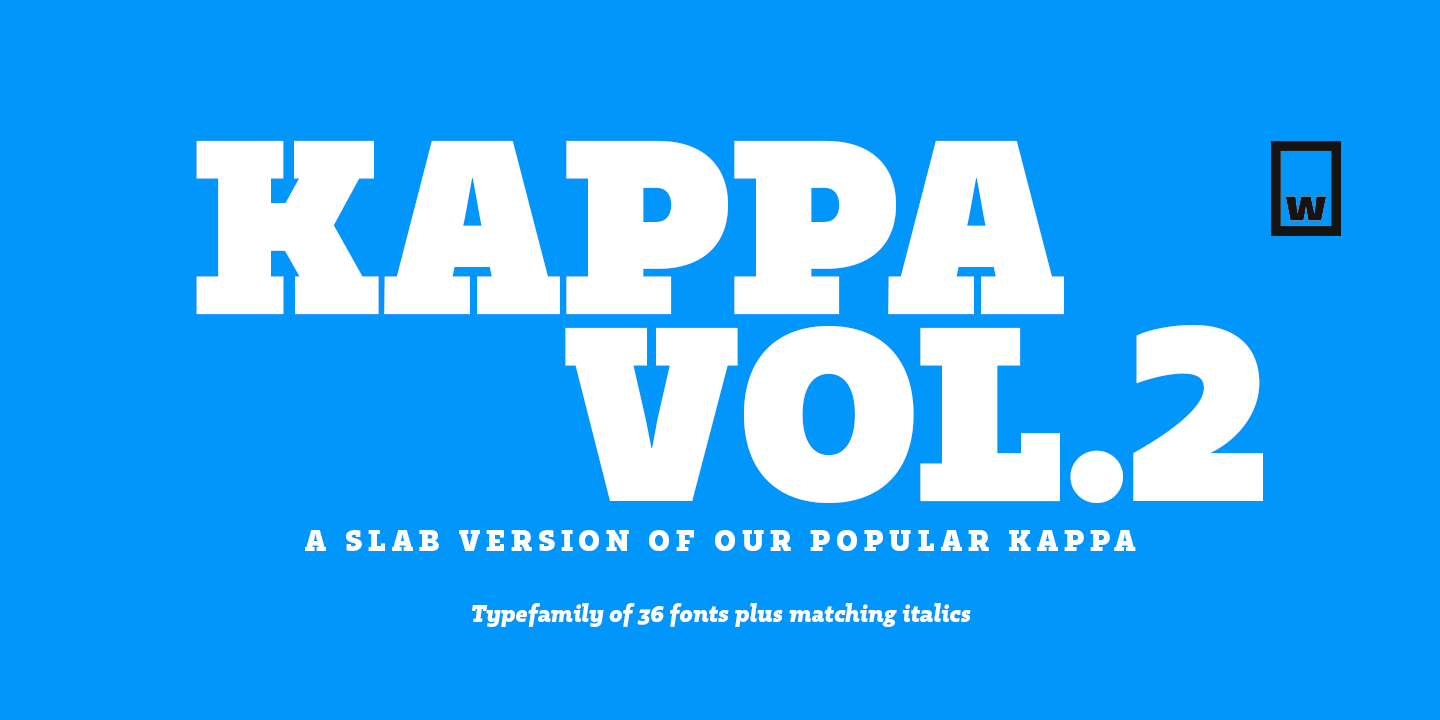
Kappa Vol. 2 Font is a dynamic and expressive typeface, perfectly suited for projects that demand attention and convey a strong sense of personality. Its bold and distinctive character makes it an excellent choice for eye-catching headlines, impactful posters, thrilling movie titles, energetic music album covers, and striking editorial designs. Imagine it gracing the covers of action-packed video games, adding a punch to athletic apparel branding, or bringing a modern edge to event promotions. Kappa Vol. 2 Font excels in scenarios where you want your text to be both readable and visually commanding, leaving a memorable impression.
What makes Kappa Vol. 2 Font so exciting is its unique blend of contemporary style with an almost futuristic or technical flair. It possesses a confident presence, often characterized by sharp angles, strong strokes, and a precise, almost engineered feel. This font isn't afraid to make a statement, and its distinctive letterforms give it an unparalleled energy. It's the kind of typeface that speaks to innovation, strength, and a cutting-edge aesthetic, instantly elevating any design it's applied to. Its powerful visual impact ensures that your message is not just seen, but felt, resonating with an audience that appreciates bold and forward-thinking design.
The Kappa Vol. 2 Font family typically offers a range of weights to provide versatility for various design applications. While specific styles can vary, you might expect to find weights such as Regular, Bold, and perhaps even a Heavy or Black option, allowing for different levels of emphasis and visual hierarchy within your designs. Some families might also include condensed or expanded versions to further broaden their applicability. Each weight in the Kappa Vol. 2 Font family maintains the core distinctive characteristics, ensuring a consistent and impactful visual identity across all your creative projects.